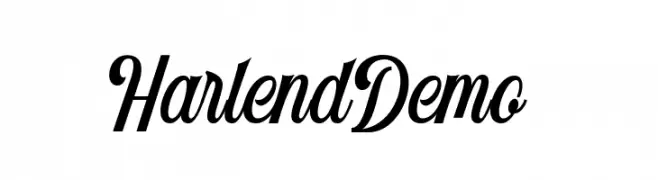
A textured, decorative font with characters made of pebble-like shapes.
A nautical-themed decorative font with rope and anchor motifs.
A pixelated, retro-style font with a blocky, digital appearance.
A bold, hand-drawn font with a playful and artistic style.
A dynamic and elegant script font with flowing, cursive letterforms.
A playful, hand-drawn font with tall, narrow letters and a casual style.
A bold, geometric font with a double-line structure and futuristic appeal.
A bold, italic font with a dynamic and angular style.
A bold, vintage-style font with tall, condensed characters and consistent stroke thickness.
A bold, playful font with a 3D block-like appearance.